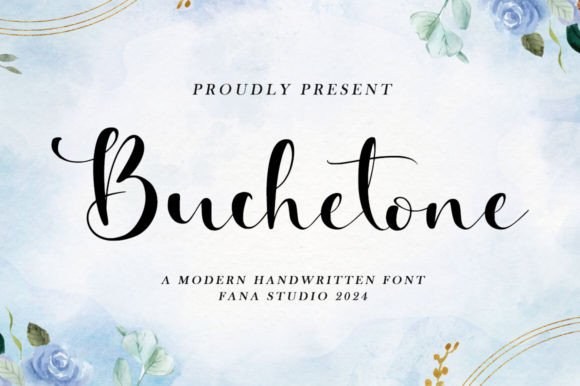
The Buchetone Script: A Stunning Font for Creative Projects
I still remember the design project that led me to discover the Buchetone Script. I was working on a wedding invitation suite for a client who wanted something elegant, yet modern. I had spent hours browsing through font libraries, but nothing seemed quite right. That was when I stumbled upon Buchetone, and it instantly captured my attention. Its beautiful, flowing script and versatility made it perfect for the project. In this article, I’ll share my experience with the Buchetone Script, its features, and how to make the most of it in various design platforms.
An Honest Review of Buchetone Script
- ✨ Gorgeous typographic style perfect for logos, branding, invitations, and more
- ✅ Highly versatile and adaptable to different design projects
- 💫 Beautifully crafted with attention to detail and aesthetics
- 🎨 Supports OpenType features, glyphs, and stylistic alternates for creative freedom
While Buchetone Script is an excellent font, there are a few things to keep in mind:
- ⚠️ Some users might find the font a bit too ornate for certain projects
- 🤔 Limited use of uppercase letters, which might not be ideal for all designs
The Designer Inspiration Behind Buchetone
Buchetone Script was designed with inspiration from traditional calligraphy and modern digital typography. The creator aimed to craft a font that would be both elegant and versatile, suitable for a wide range of creative projects. With its beautiful lines and flowing script, Buchetone Script is a testament to the power of typography in design.
Q: What type of projects is Buchetone Script best suited for?
A: Buchetone Script is perfect for logos, branding, invitations, stationery, wedding designs, social media posts, advertisements, product packaging, and more.
Q: Does Buchetone Script support OpenType features?
A: Yes, Buchetone Script supports OpenType features, glyphs, and stylistic alternates, giving you creative freedom to experiment with different typographic styles.